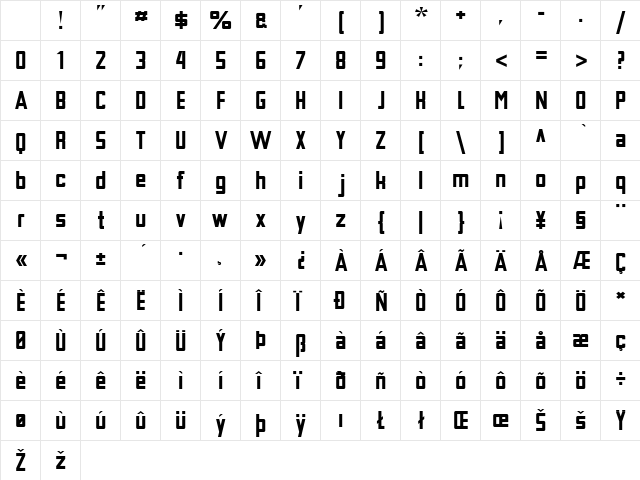
Tschichold Alternate is a composed and adaptable typeface that performs quietly and consistently across a wide range of design contexts. Its bold stroke weight gives it real presence on the page.